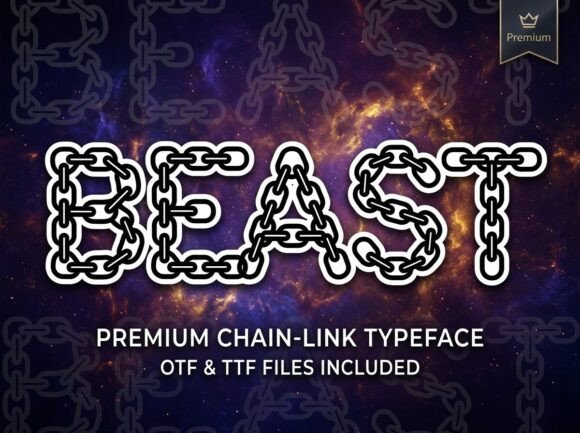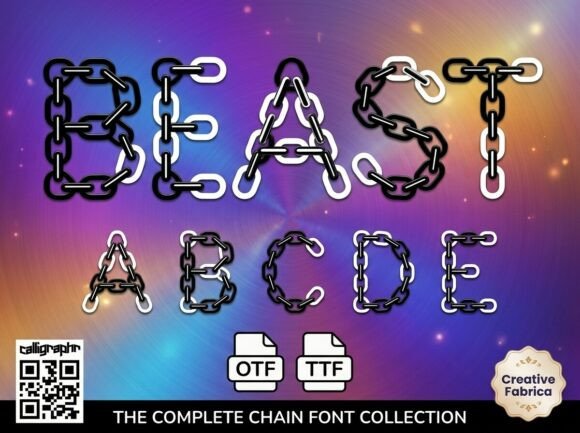
Unleash Your Brand’s Inner Strength with Beast Font
In the world of typography, a font can make or break a brand’s identity. For those looking to make a bold statement, Beast Font is the ultimate choice. This high-strength display typeface is designed to capture the essence of a “heavy-and-hard-hitting” soul, making it perfect for independent fitness and gym identities, boutique streetwear logos, edgy motorcycle club branding, and high-impact social media headers.
The Unique Design of Beast Font
Beast Font features massive letterforms that are uniquely constructed from rhythmic, hand-drawn “interlocking chain” links. This design bridges the gap between industrial grit and modern urban branding, giving your brand a raw, powerful personality. The heavy structural weight of Beast Font makes it stand out in a crowded market, ensuring your brand gets noticed.
Industrial Grit Meets Modern Urban Branding
The interlocking chain links that make up Beast Font’s letterforms are a nod to the industrial grit that defines the font’s aesthetic. However, the hand-drawn nature of these links also gives the font a modern, urban feel that’s perfect for boutique streetwear logos and edgy motorcycle club branding. This blend of old and new makes Beast Font a versatile choice for brands looking to make a statement.
Perfect for High-Impact Branding
Beast Font is designed for high-impact branding, making it perfect for use in social media headers, posters, and flyers. Its heavy structural weight and raw, powerful personality ensure that your brand gets noticed, even in a crowded market. Whether you’re looking to create a bold logo for your fitness brand or a striking header for your social media profiles, Beast Font is the ultimate choice.
Key Features of Beast Font
- High-strength display typeface: Designed to capture a “heavy-and-hard-hitting” soul, Beast Font is perfect for brands looking to make a bold statement.
- Unique interlocking chain link design: The hand-drawn “interlocking chain” links that make up Beast Font’s letterforms give the font a raw, industrial feel.
- Heavy structural weight: Beast Font’s heavy structural weight ensures that your brand gets noticed, even in a crowded market.
- Perfect for high-impact branding: Whether you’re looking to create a bold logo or a striking header, Beast Font is the ultimate choice.
Use Beast Font for:
- Independent fitness and gym identities: Beast Font’s raw, powerful personality makes it perfect for fitness brands looking to make a bold statement.
- Boutique streetwear logos: The font’s unique blend of industrial grit and modern urban branding makes it perfect for boutique streetwear logos.
- Edgy motorcycle club branding: Beast Font’s heavy structural weight and raw, powerful personality make it perfect for edgy motorcycle club branding.
- High-impact social media headers: Beast Font is designed for high-impact branding, making it perfect for use in social media headers.
In conclusion, Beast Font is the ultimate choice for brands looking to make a bold statement. Its unique design, heavy structural weight, and raw, powerful personality make it perfect for independent fitness and gym identities, boutique streetwear logos, edgy motorcycle club branding, and high-impact social media headers. With Beast Font, you can forge an unbreakable identity that sets your brand apart from the competition.